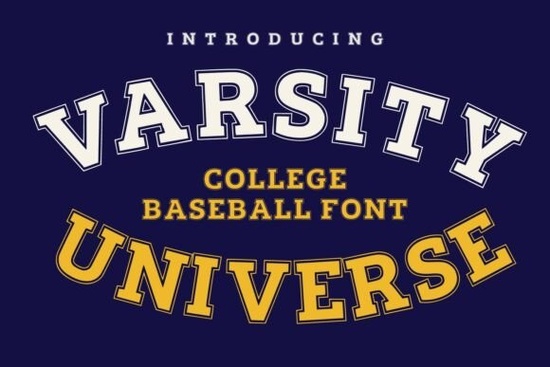
If you're looking for a bold, authentic look that captures the spirit of classic American college sports, Varsity Universe Font delivers exactly that. This display font draws from vintage varsity lettering and retro sports typography, giving your designs a timeless feel that works well for team branding, apparel, and event graphics. Whether you're creating a baseball logo, designing a t-shirt for a local sports group, or working on a nostalgic poster, this font brings a strong, confident presence to your project.
What Makes Varsity Universe Font Stand Out?
The font’s strength lies in its slab serif structure with soft curves and a slightly rounded edge characteristics often seen in old-school collegiate signage. The design feels hand-crafted and full of character, which is perfect if you want to avoid overly digital or sterile looks. It’s not just about aesthetics; it’s about storytelling. When used right, Varsity Universe instantly evokes memories of campus life, high school games, and summer baseball leagues.
- Strong visual impact – Perfect for headlines, logos, and large-scale prints.
- Vintage appeal – Authentic retro sports vibe without feeling dated.
- High readability – Even at smaller sizes, the letters stay clear and distinct.
- Flexible use – Works across t-shirts, banners, stickers, and digital ads.
Best Projects for This Font
Designers and small business owners love using Varsity Universe for creative projects that need a bold identity. Think of it as your go-to choice when you want to make a statement. Here are some common uses:
- University or school team logos
- Sports apparel (t-shirts, hats, jerseys)
- Retro-style event posters and flyers
- Print-on-demand merchandise (like mugs or tote bags)
- Branding for local sports clubs or youth leagues
- Themed social media graphics for game days
You’ll find that pairing it with clean backgrounds or subtle textures enhances its vintage charm. A dark navy or red backdrop can really make the letters pop, especially when paired with minimal design elements.
How to Use It Without Overdoing It
Because of its bold nature, Varsity Universe works best when used strategically. Avoid using it for long blocks of text this is a display font, not a body font. Instead, use it for titles, headers, or key branding elements. For example, if you’re designing a t-shirt for a college alumni event, use the font for the main slogan and keep the rest of the text simple with a clean sans-serif.
Final Tips Before You Start Designing
- Test the font at different sizes make sure it stays legible on both print and screen.
- Use contrasting colors to boost visibility, especially on busy backgrounds.
- Pair it with a simpler font for balance, like a clean sans-serif for subtitles.